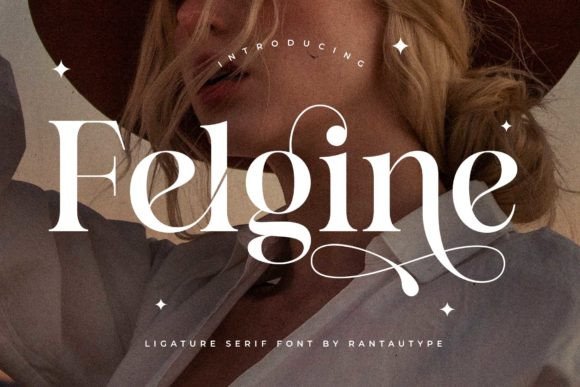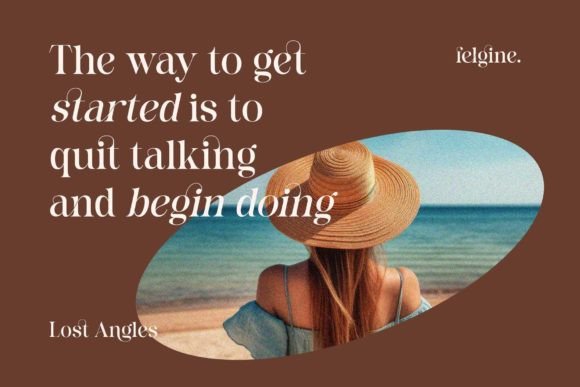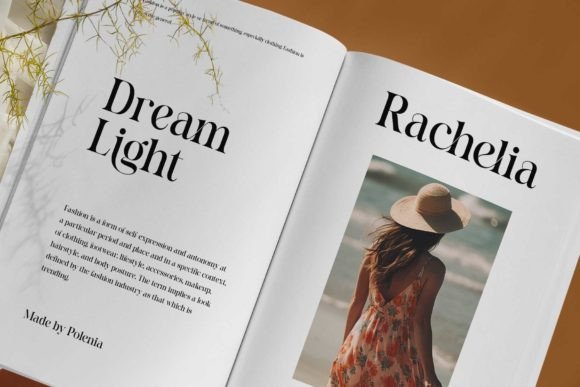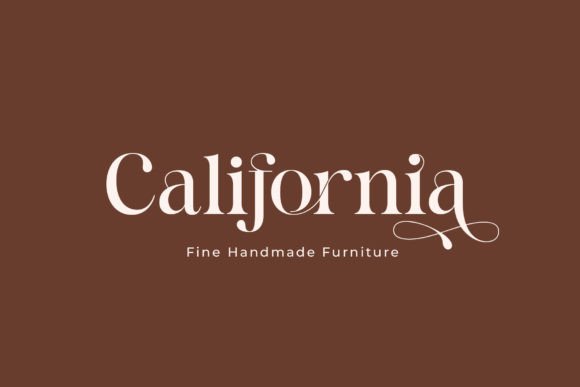
Felgine Font: Elegant Serif Typography for Chic Logo Design
About the Felgine Font
Meet Felgine Font, a stunning font that brings a touch of elegance and professionalism to any design. Felgine is a chic & elegant display serif font with a beautiful contrast. Specially designed for fashion-themed projects and creating elegant and chic lifestyle designs such as logos, titles, magazines, and more.
Feline’s elegant serifs and high contrast make it ideal for headlines, logos, and short-form text in fashion, beauty, and luxury branding. It also excels in magazine layouts, particularly for titles and section headers. However, its refined style is less suitable for body text or UI elements where readability over extended lengths is crucial.
Consider pairing Felgine with a clean sans-serif like Montserrat for a modern contrast, or a script font like Great Vibes for a touch of playful sophistication. For a more classic feel, pair it with a neutral serif like Garamond. These pairings will create visually balanced designs without overwhelming the Felgine’s elegant presence.
Feline’s overall personality is sophisticated and refined, conveying a sense of high-end quality and timeless style. It’s a font that commands attention without being overly aggressive, making it perfect for projects that require a touch of understated elegance.
Felgine Font Usage Examples
Felgine Font Example